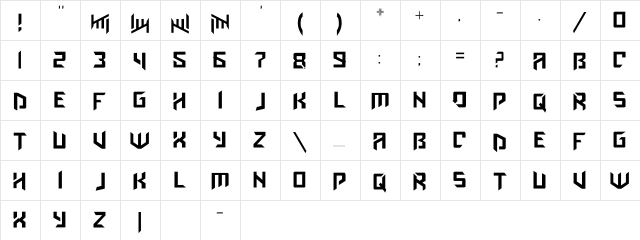
AmazObitaemOstrovFine Regular
Design Context for AmazObitaemOstrovFine Typeface
AmazObitaemOstrovFine is a composed and adaptable typeface that performs quietly and consistently across a wide range of design contexts.